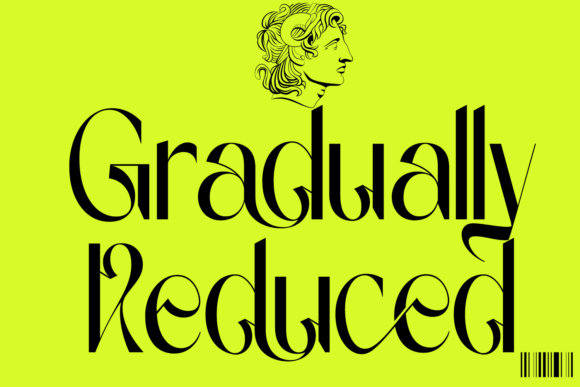
Gradually Reduced is a modern and stylish serif font! Its contemporary design features crisp, clean lines and a bold, confident attitude that conveys a sense of professionalism and sophistication. Perfect for modern branding, editorial layouts, and other sleek designs, New Standard adds a touch of cutting-edge style to any project.